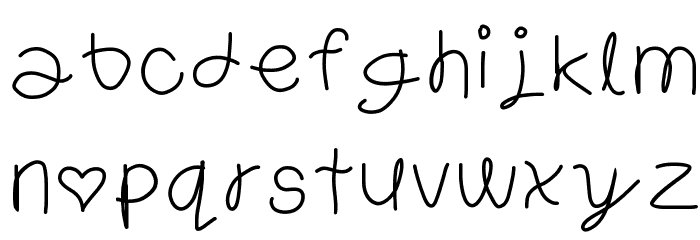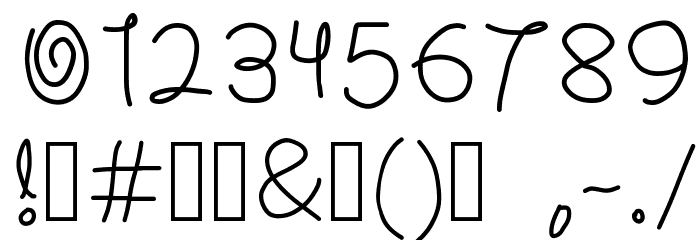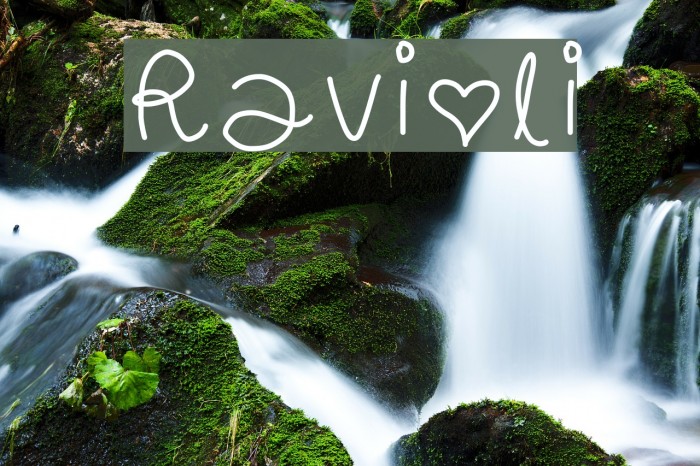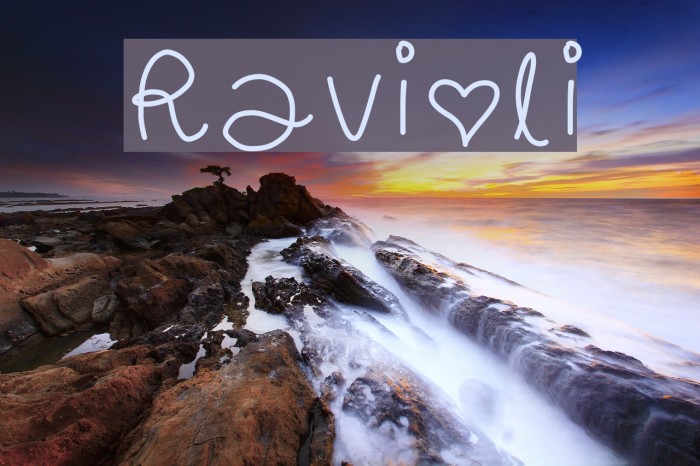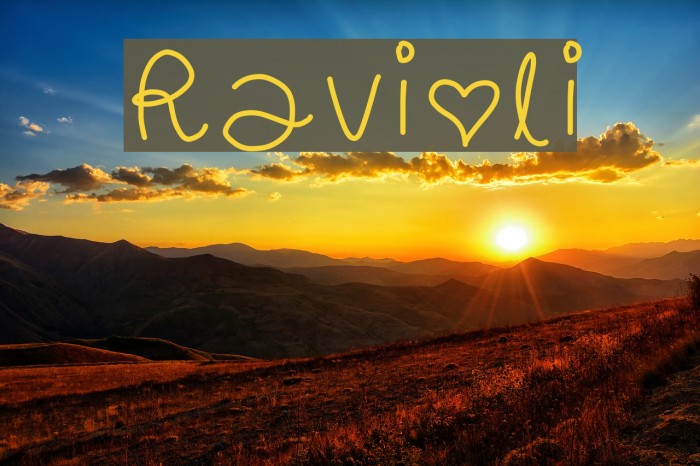
Ravioli Font
This playful and whimsical font features a handwritten style with a casual, friendly appearance. The characters are slightly irregular, adding to the charm and uniqueness of the design. Uppercase letters are bold and distinct, while lowercase letters maintain a consistent flow with a touch of creativity, such as the heart-shaped 'O'. The numerals are clear and easy to read, with a quirky twist that matches the overall style. Special characters are thoughtfully designed to complement the font's playful nature. This font is perfect for projects that require a personal touch or a fun, informal vibe.
A playful, handwritten font with a whimsical and casual style.
- Proposed Projects: Ideal for greeting cards, children's books, playful branding, and casual invitations.
- Overall Style: Whimsical
- Use Case: Headlines, Logos, Informal Text